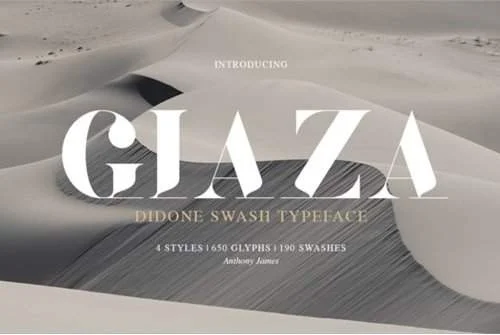
Giaza Font
Giaza Font is perfect for contemporary branding, modern lifestyle magazines, trendy fashion labels, innovative tech startups, creative agency identities, stylish product packaging, cutting-edge websites, progressive corporate communications, urban signage systems, dynamic social media graphics, artistic portfolios, and forward-thinking editorial design.
What makes Giaza Font exciting is its dynamic versatility that captures the spirit of modern innovation through distinctive letterforms that balance creative expression with professional functionality. This compelling typeface embodies contemporary design thinking, combining bold character with refined execution that speaks to audiences seeking authenticity and progressive style. The font's unique personality and carefully crafted details make it ideal for brands that want to stand out in competitive markets while maintaining the credibility necessary for serious business applications. Its adaptable nature works seamlessly across various contexts, from intimate personal communications to large-scale commercial campaigns.
The Giaza Font family includes light, regular, medium, and bold weights, featuring stylistic alternates, creative ligatures, and modern design elements. The character set incorporates contemporary symbols, expressive numerals, and innovative punctuation marks that enhance the font's distinctive character and provide designers with comprehensive modern typography solutions.